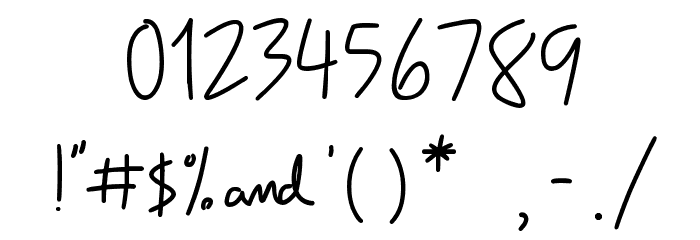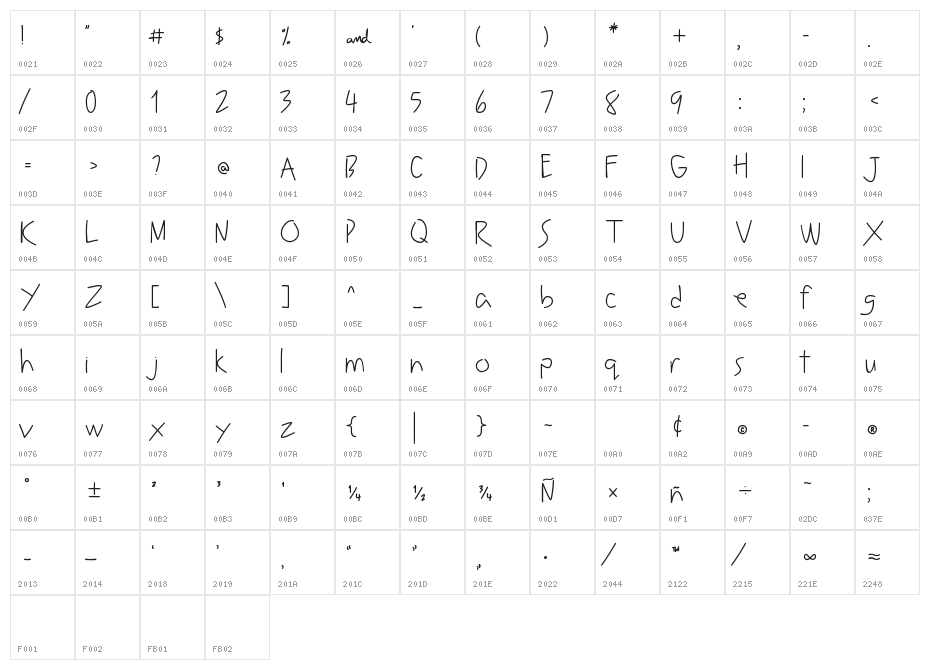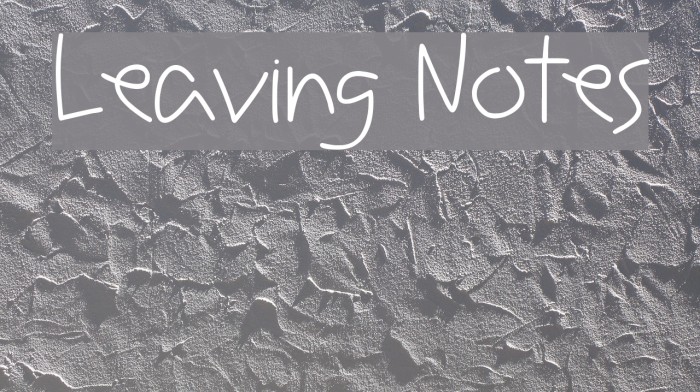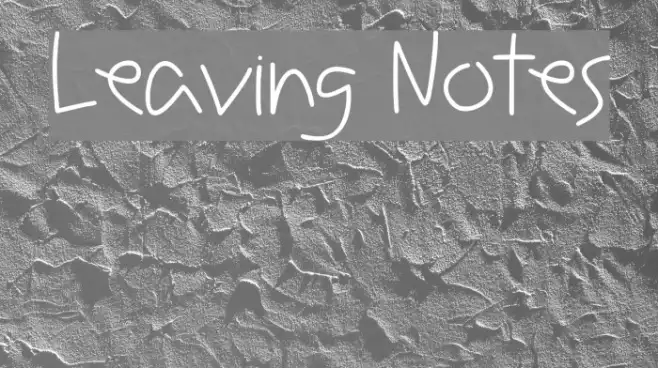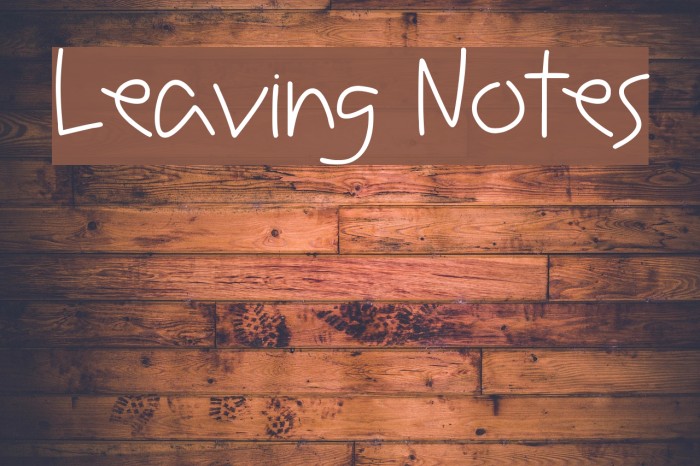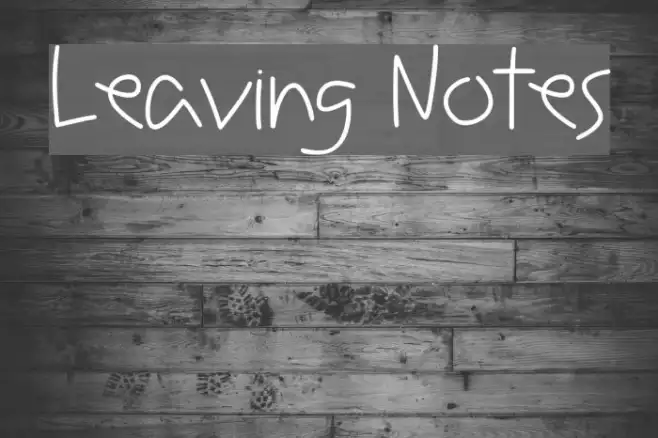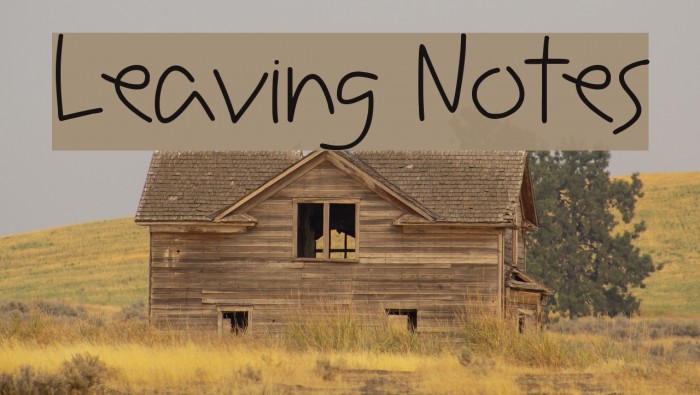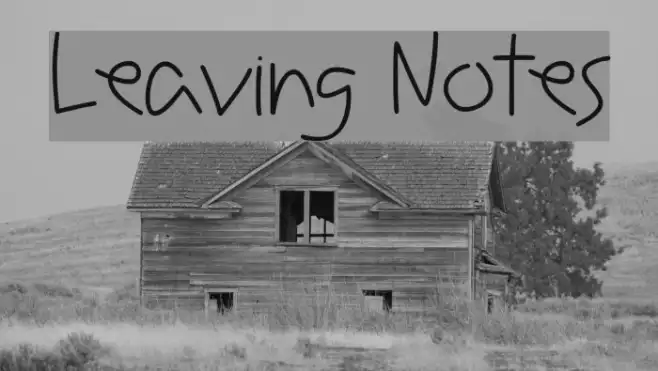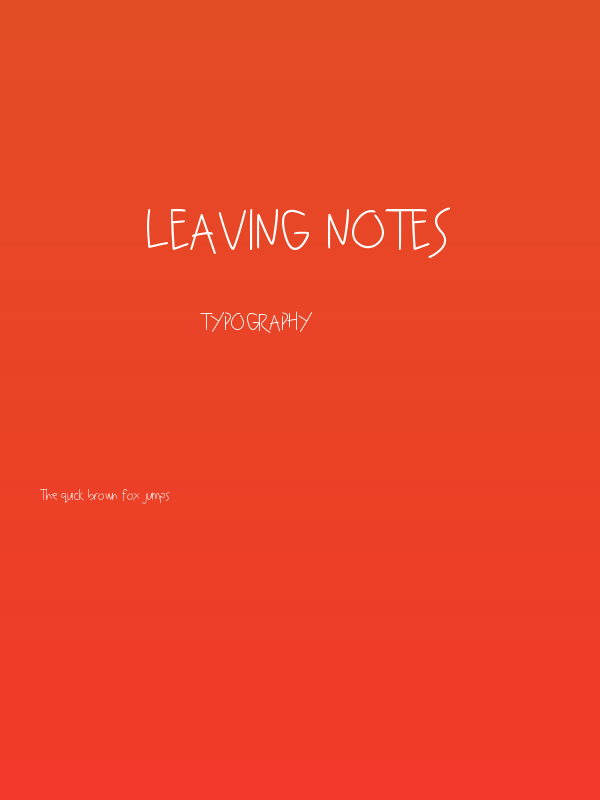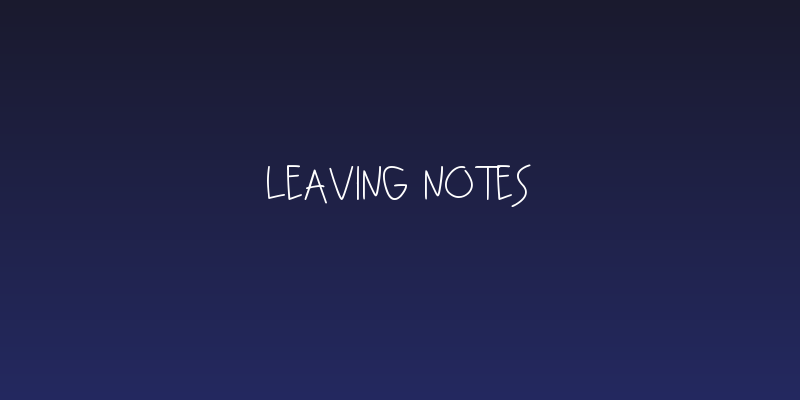
Leaving Notes Font
Leaving Notes Description
This font features a casual, handwritten style that exudes a personal and informal feel. The letters are slightly irregular, mimicking the natural flow of handwriting. The uppercase and lowercase characters maintain a consistent style, with a playful and approachable appearance. The numbers and special characters follow the same aesthetic, making the font versatile for various uses. The strokes are consistent in thickness, providing a balanced look without high contrast. This font is ideal for projects that require a human touch, such as personal notes, informal invitations, or creative projects.
| Use Case | Personal notes, informal invitations, creative projects. |
| Proposed Projects | Ideal for personal notes, informal invitations, greeting cards, and creative projects. |